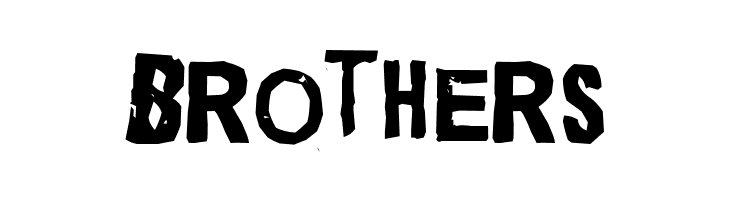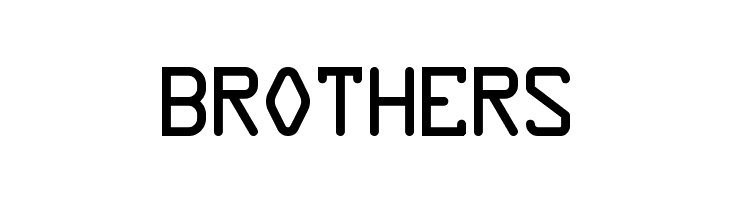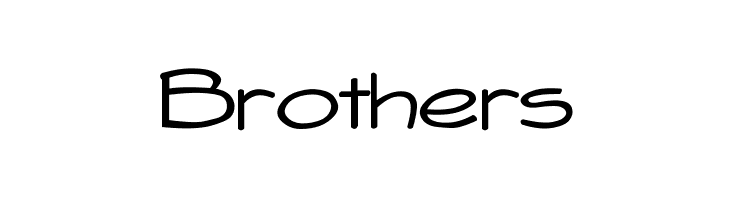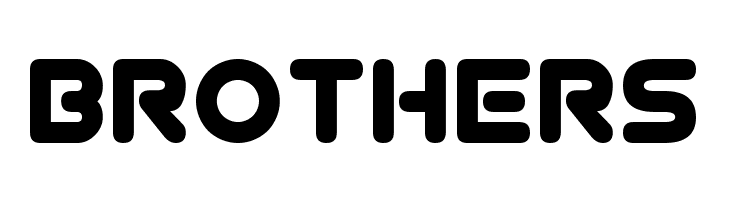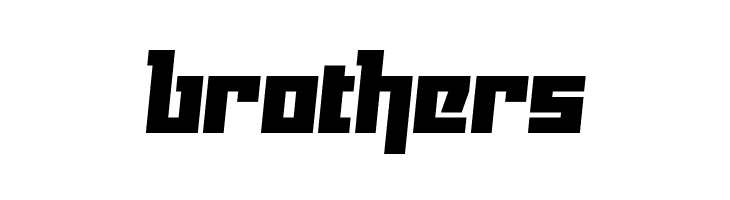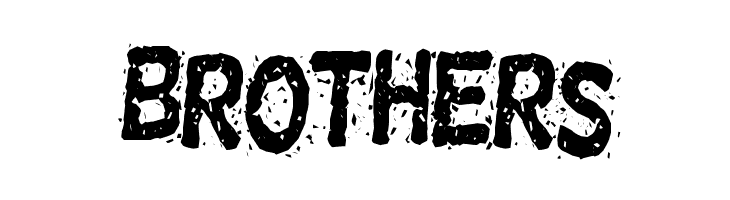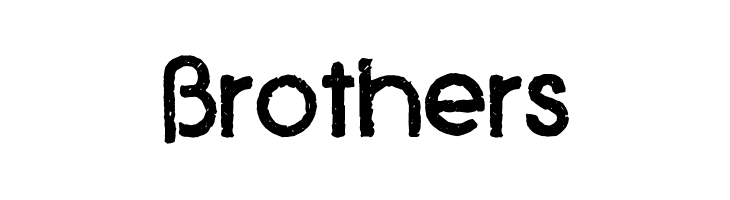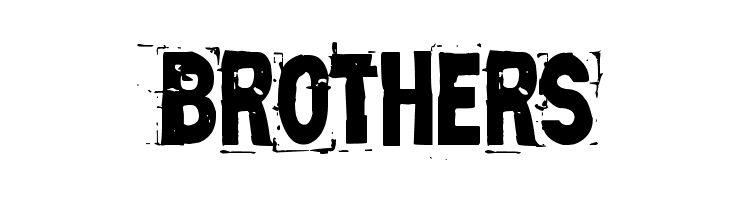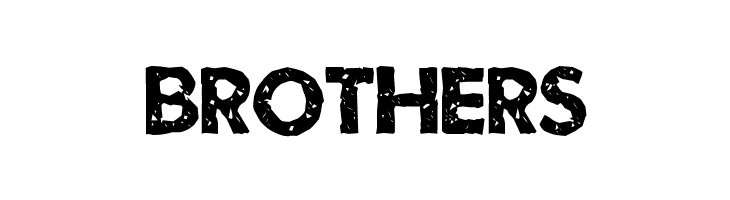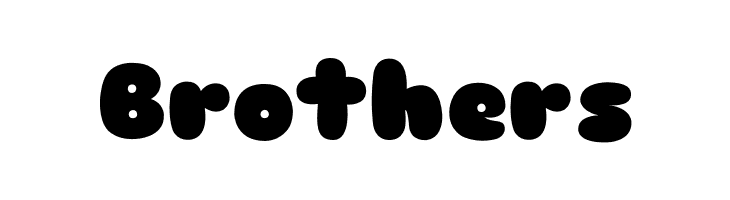
A bold, playful set of expressive and dynamic symbols with a comic book style.
A bold, sans-serif font with strong, thick strokes and a modern aesthetic.
A bold, rugged font with a chiseled, handcrafted appearance.
A distressed, grungy font with a bold, chaotic style.
A playful, rounded font with smooth curves and a friendly appearance.
A bold, geometric font with uniform stroke widths and a modern aesthetic.
A playful, bold font with rounded, bubbly characters.
A bold, rugged font with chiseled, handcrafted aesthetics.
A bold, textured font with a distressed, handcrafted appearance.
A playful, rounded font with a casual, handwritten style.
A bold, rounded, and geometric font with a modern, tech-inspired style.
A bold, angular font with a geometric and dynamic style.
A bold, distressed font with a grungy, textured appearance.
A bold, textured font with a rustic, hand-crafted appearance.
A bold, distressed font with a grunge aesthetic.
A bold, distressed font with a rugged, vintage look.
A playful, bold font with rounded, bubbly characters ideal for fun designs.
A playful, bold font with rounded, bubbly characters perfect for fun and whimsical designs.
A bold, brush-style font with an energetic and dynamic appearance.
A geometric, futuristic font with bold, angular letterforms and consistent stroke widths.
A futuristic, geometric font with angular and structured letterforms.